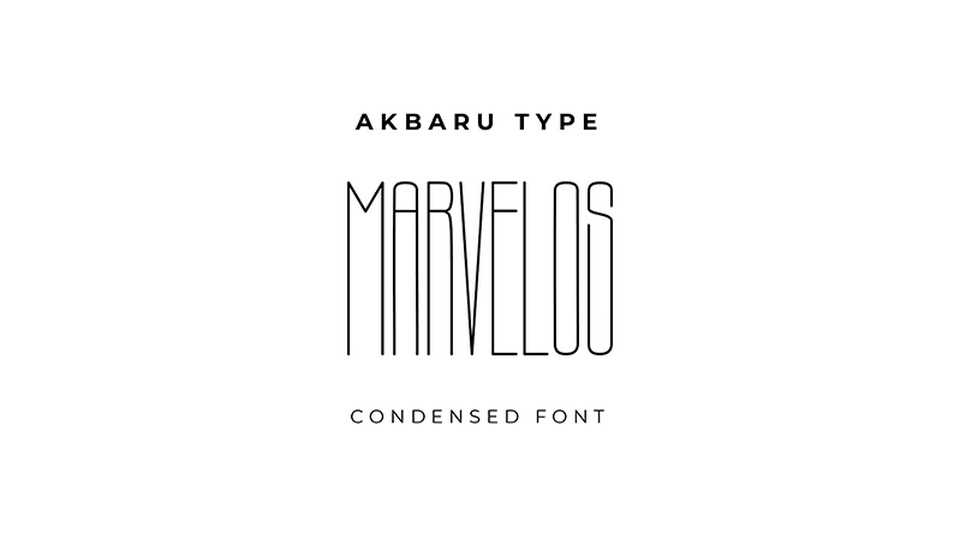
Download Marvelos font, an ultra condensed tall and thin typeface. With its fine and clean look Marvelos works very well for display and editorial use.
Designer: Akbaru Type